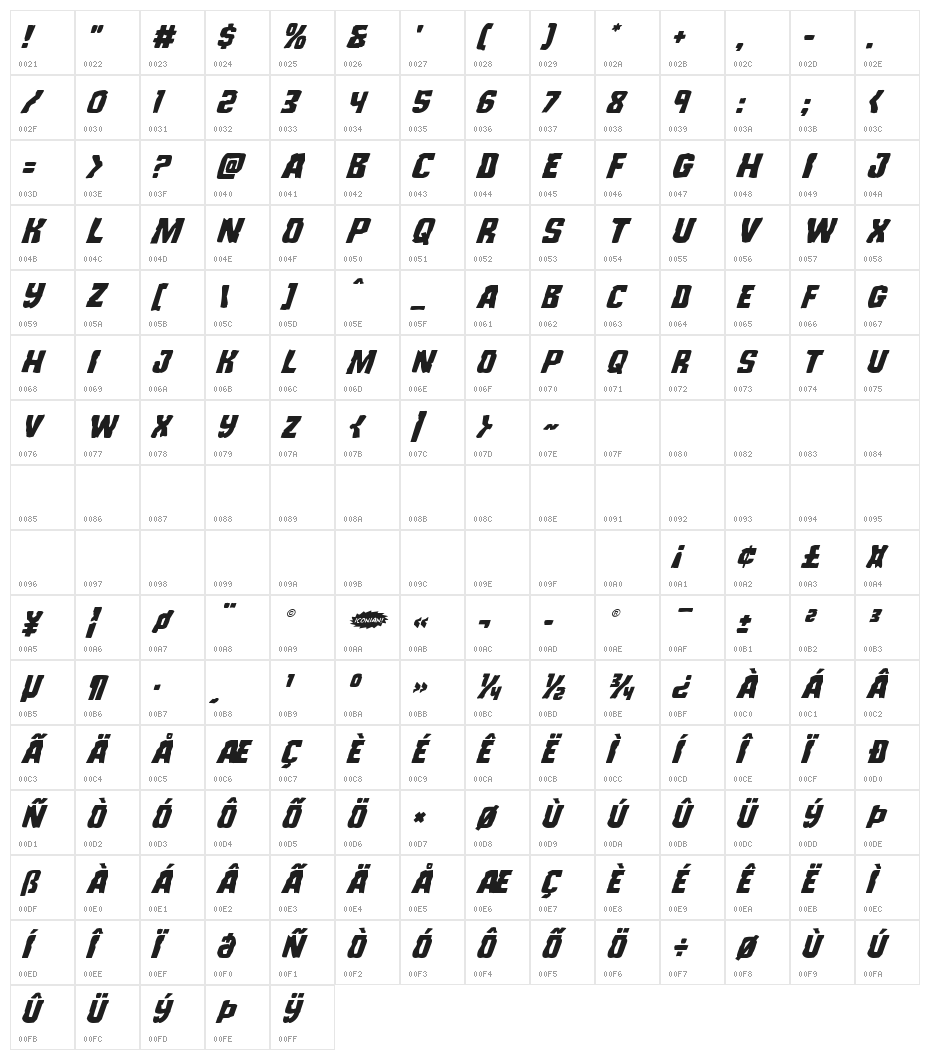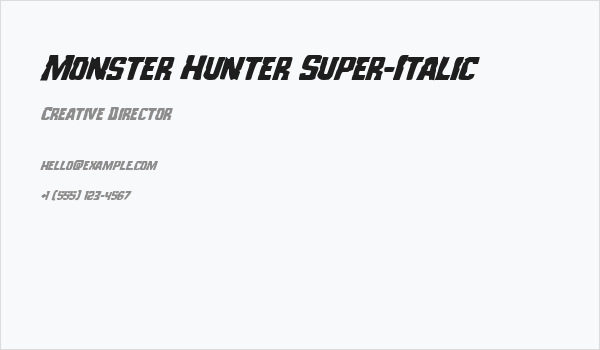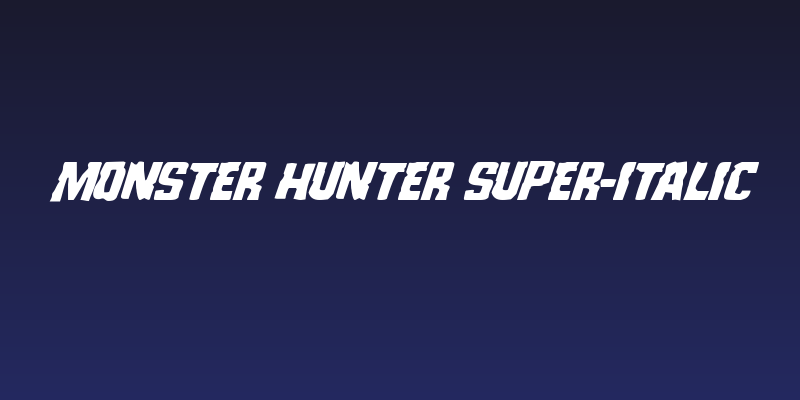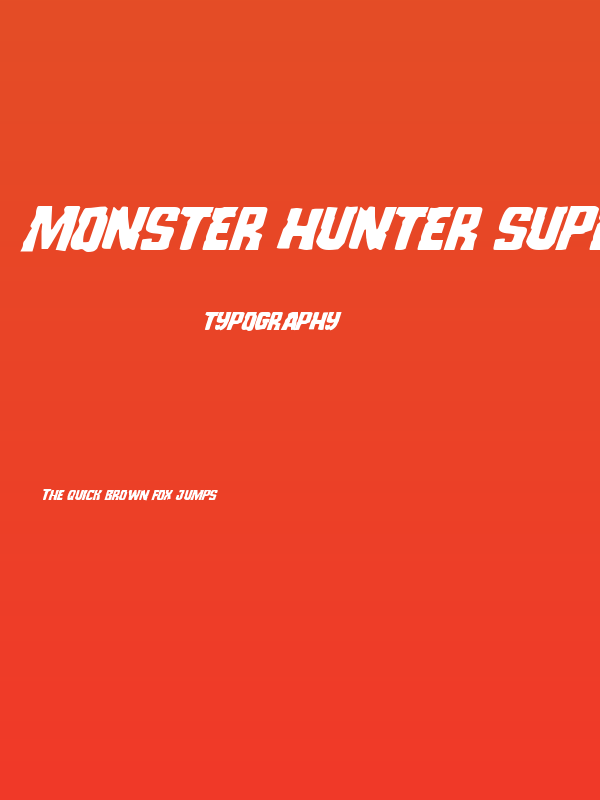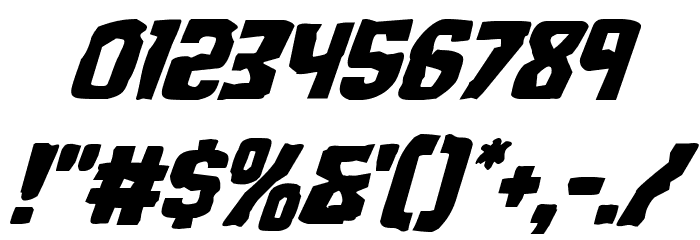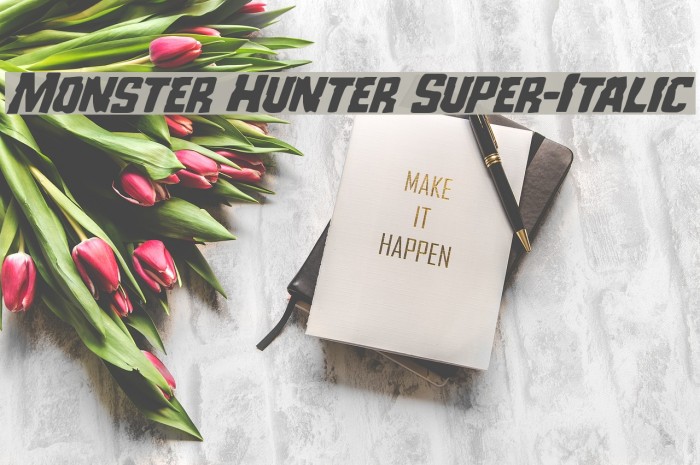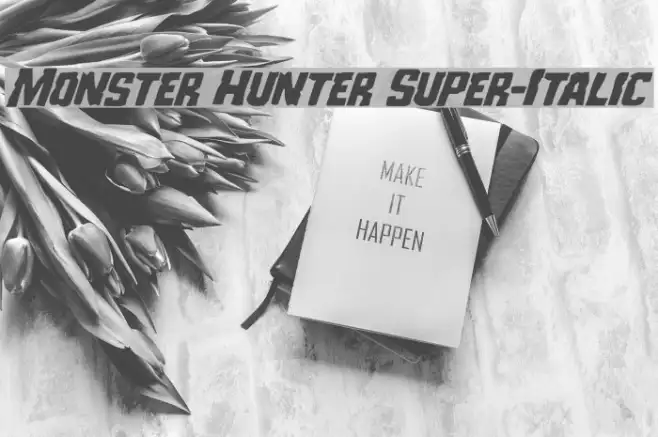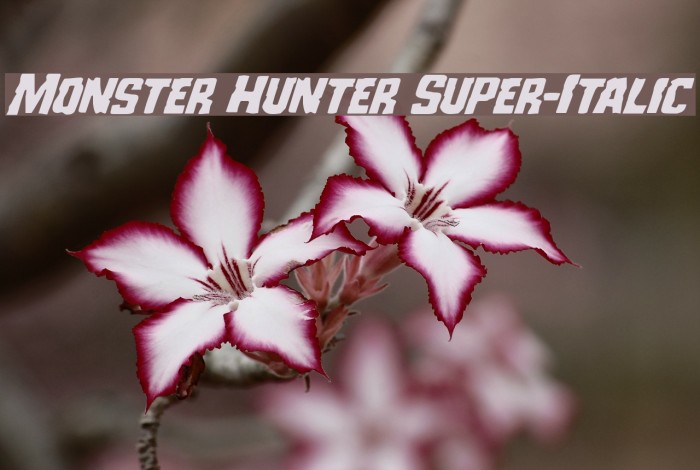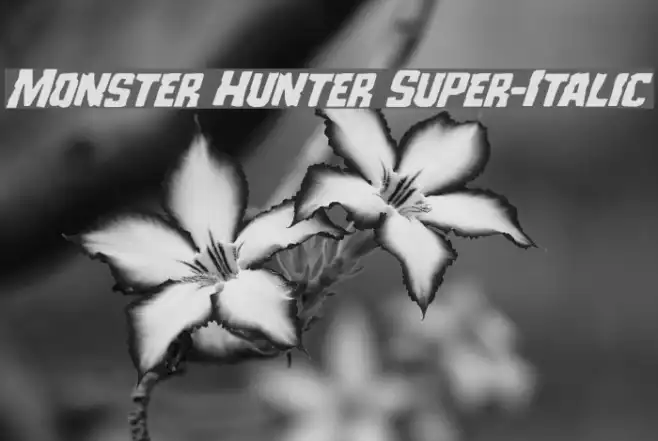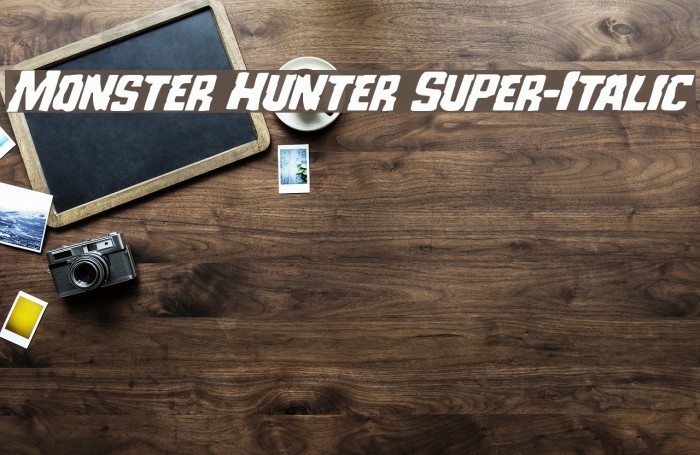
Monster Hunter Super-Italic Font
Monster Hunter Super-Italic Description
This font features a bold and dynamic style with a strong italic slant, giving it a sense of movement and energy. The characters are robust and angular, with sharp edges and a slightly condensed form. The uppercase and lowercase letters maintain a consistent weight, contributing to a cohesive and powerful appearance. The numerals and special characters are designed to match the boldness of the alphabet, ensuring uniformity across all glyphs. This font's aggressive and modern aesthetic makes it suitable for impactful designs.
| Proposed Projects | Ideal for video game titles, action movie posters, sports branding, and dynamic logo designs. |